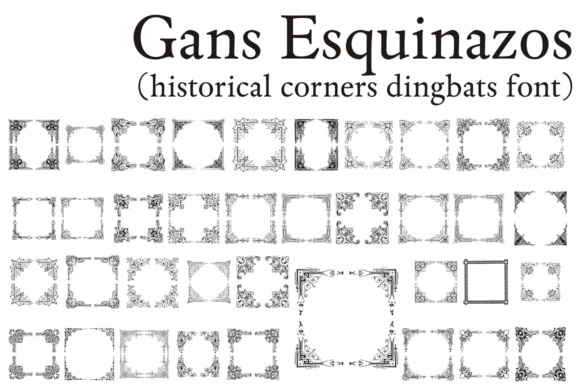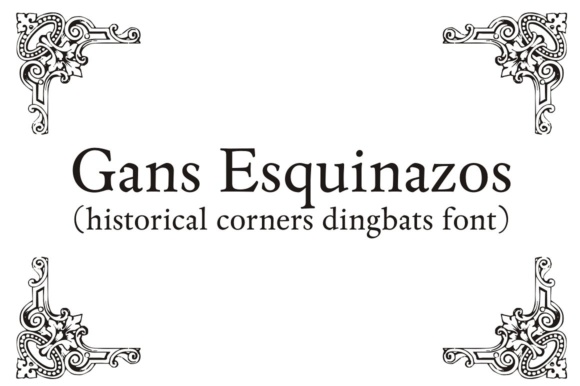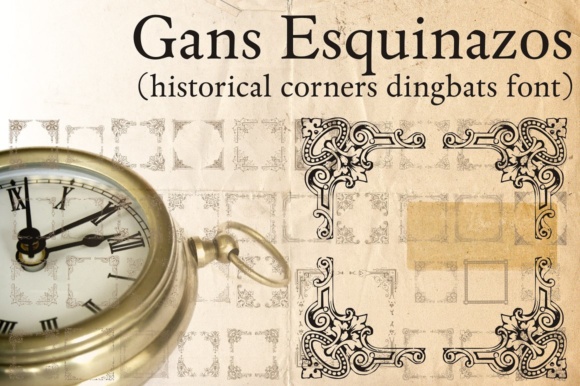
Gans Esquinazos Font
About Gans Esquinazos Font
Introducing Gans Esquinazos, a captivating decorative font design that showcases a diverse collection of borders, ornaments, and frame-like illustrations. This unique font draws inspiration from the extinct typefoundry of Richard Gans and features 40 original dingbats meticulously researched from their rare catalog.
Gans Esquinazos offers a wide range of decorative elements that can add a touch of elegance and sophistication to your design projects. From intricate borders that frame your content to ornate ornaments that embellish your compositions, this font provides a versatile set of visual elements to enhance your creative works.
The carefully selected dingbats in Gans Esquinazos are a testament to the rich heritage of typography and design. Each illustration has been thoughtfully crafted and seamlessly integrated into the font, allowing you to easily incorporate them into your projects. Whether you’re designing invitations, stationery, posters, or any other creative piece, these dingbats will elevate the visual appeal and bring a touch of vintage charm.
The beauty of Gans Esquinazos lies not only in its ornamental elements but also in its historical significance. By resurrecting and reviving these rare dingbats from Richard Gans’ typefoundry, you’re embracing the legacy of traditional typography and adding a touch of nostalgia to your designs.
With Gans Esquinazos, you have a wealth of design possibilities at your fingertips. Explore the various borders, ornaments, and frame-like illustrations to create captivating compositions that leave a lasting impression. Let your creativity soar as you combine these elements with other typefaces, graphics, and colors to bring your vision to life.
Whether you’re aiming for a vintage-inspired aesthetic, a classic and elegant look, or a touch of decorative flair, Gans Esquinazos is the perfect companion for your design journey. Let these beautiful dingbats transform your projects into works of art that evoke a sense of timeless beauty and craftsmanship.
Embrace the charm of Gans Esquinazos and unlock the possibilities of creating visually stunning designs with its rich collection of borders, ornaments, and frame-like illustrations. Elevate your creative endeavors and pay homage to the historical legacy of typography with this captivating font.